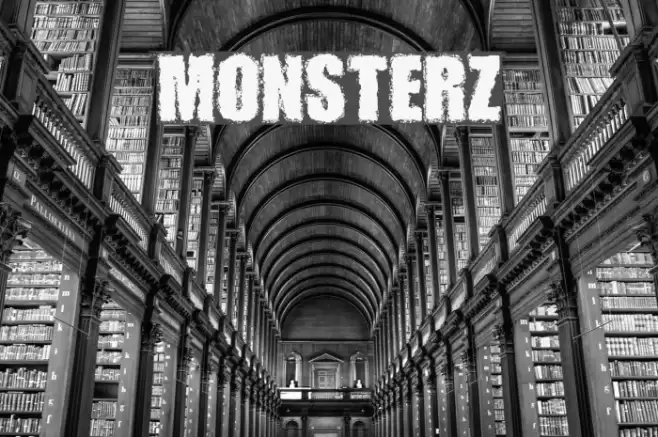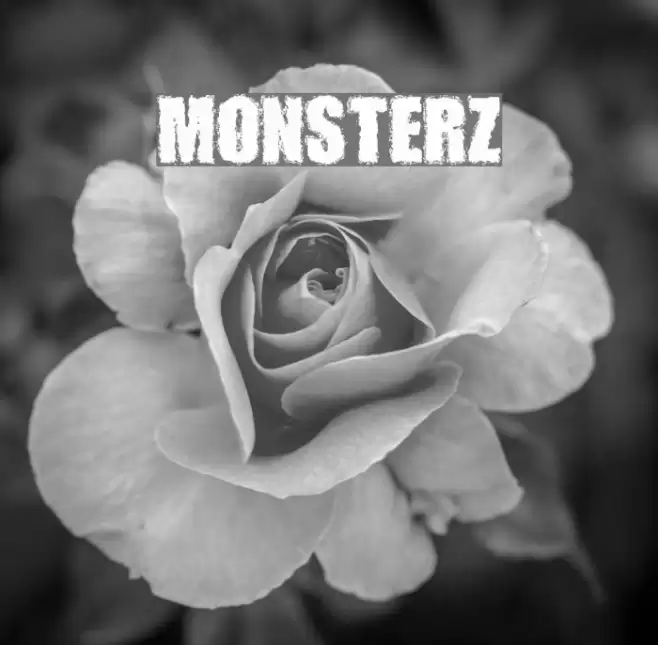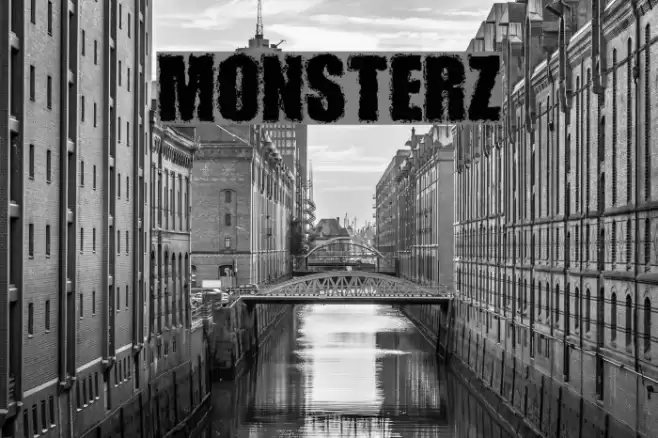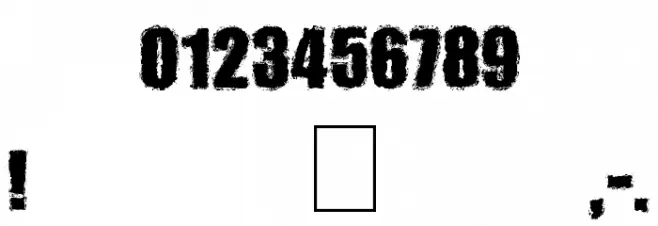
MONSTERZ Font
MONSTERZ Description
This font features a bold and rugged design with a distressed texture, giving it a gritty and worn appearance. The uppercase letters are prominently displayed with a heavy weight, creating a strong visual impact. The characters are slightly irregular, adding to the font's unique and edgy style. The numbers and special characters maintain the same distressed look, ensuring consistency across all elements. This font is ideal for projects that require a bold statement or a vintage, industrial feel. Its rough texture and bold presence make it suitable for eye-catching designs.
A bold, distressed font with a rugged, worn texture from Uncategorized fonts.
- Proposed Projects: Ideal for posters, album covers, branding for edgy or vintage-themed products, and any design needing a bold, gritty statement.
- Overall Style: Vintage, Industrial